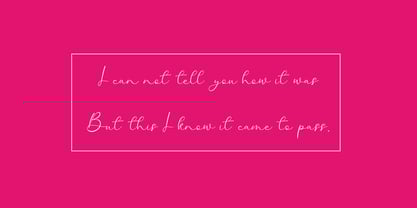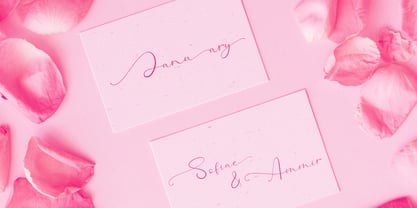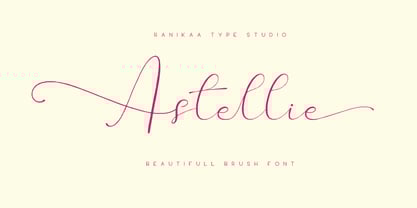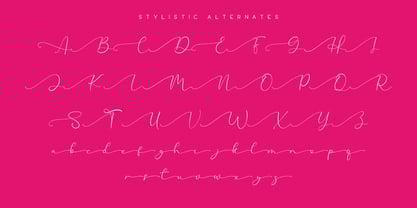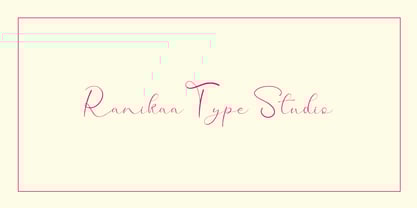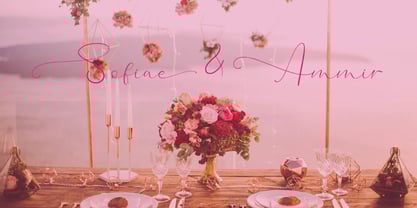
Astellie
by Ranikaa Type Studio
The Astellie Font Family was designed by Rani Septia and published by Ranikaa Type Studio. Astellie contains 1 styles.
Astellie is a modern, elegant script font that blends fluid calligraphy with contemporary sophistication. Its graceful letterforms feature smooth curves, delicate swashes, and a natural hand-lettered flow, making it perfect for branding, wedding invitations, logos, social media graphics, and packaging. Astellie strikes a balance between refined beauty and readability, offering stylistic alternates and ligatures to elevate your design with a touch of charm and personal flair. Whether you're aiming for romantic or luxurious, Astellie delivers timeless appeal in every stroke.